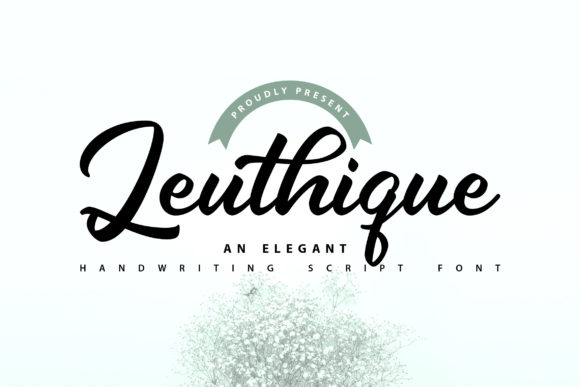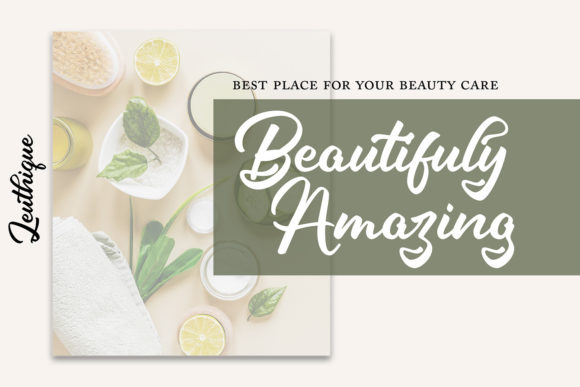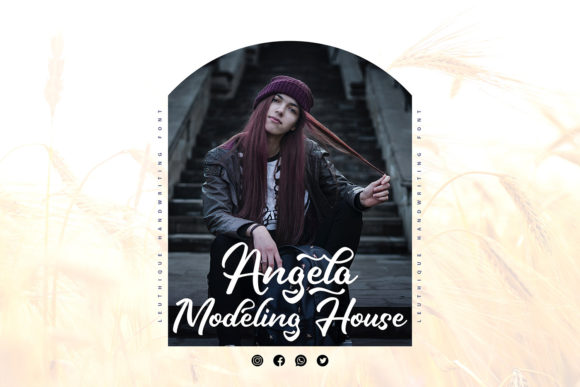
About Leuthique Font
Leuthique is a delicate, elegant and flowing handwritten font. It has beautiful and well balanced characters and as a result, it matches a wide pool of designs. This font is PUA encoded which means you can access all of the glyphs and swashes with ease!Â